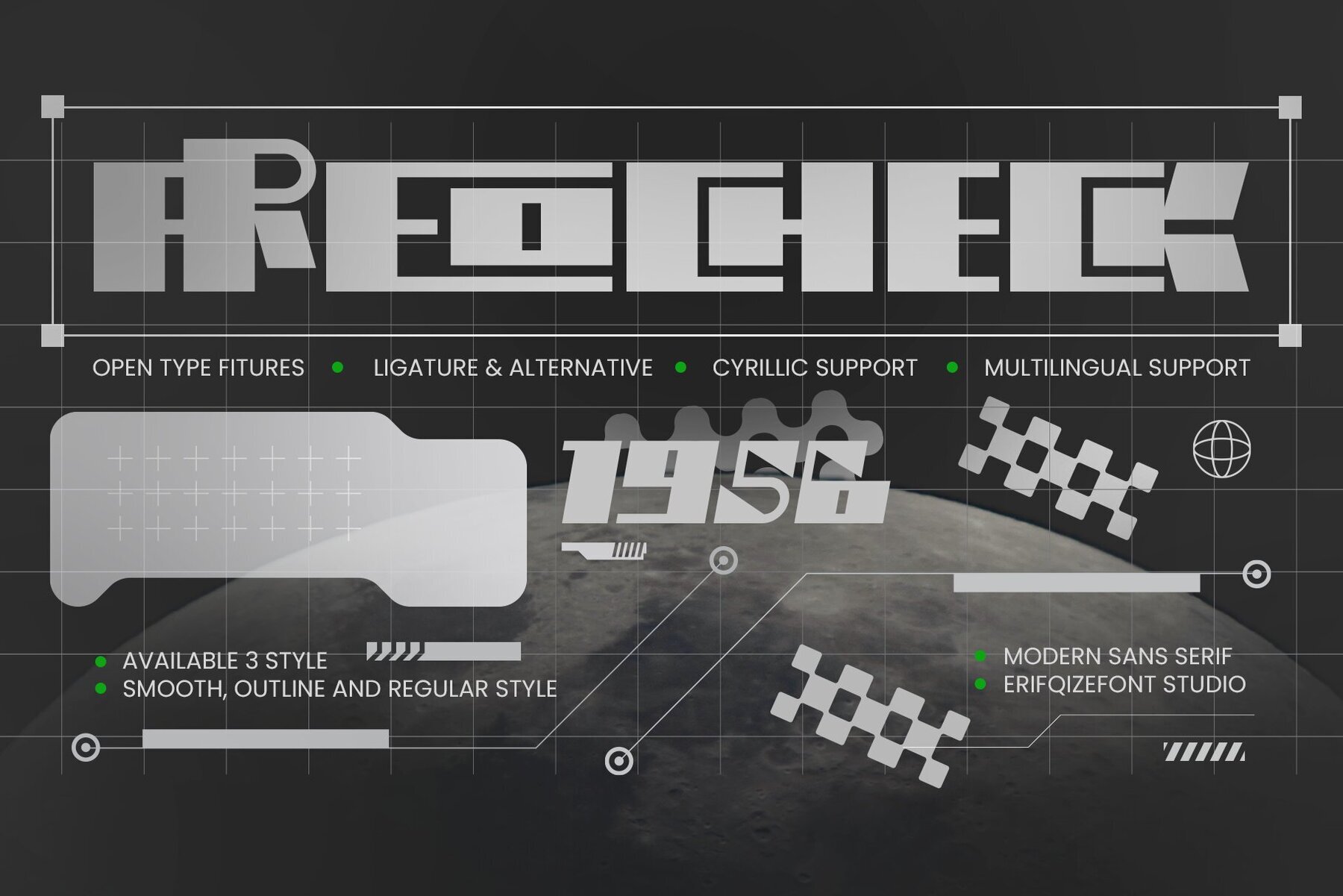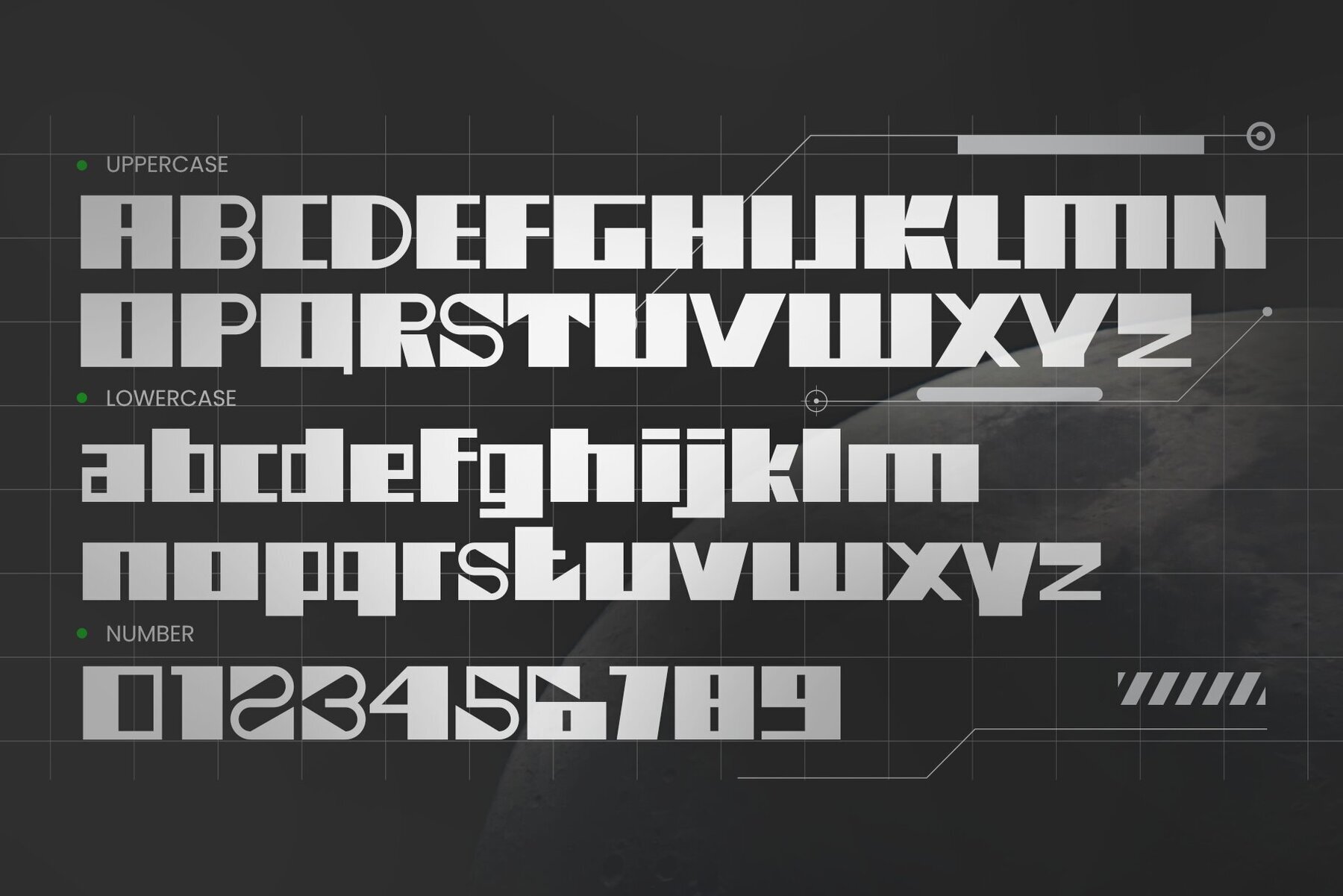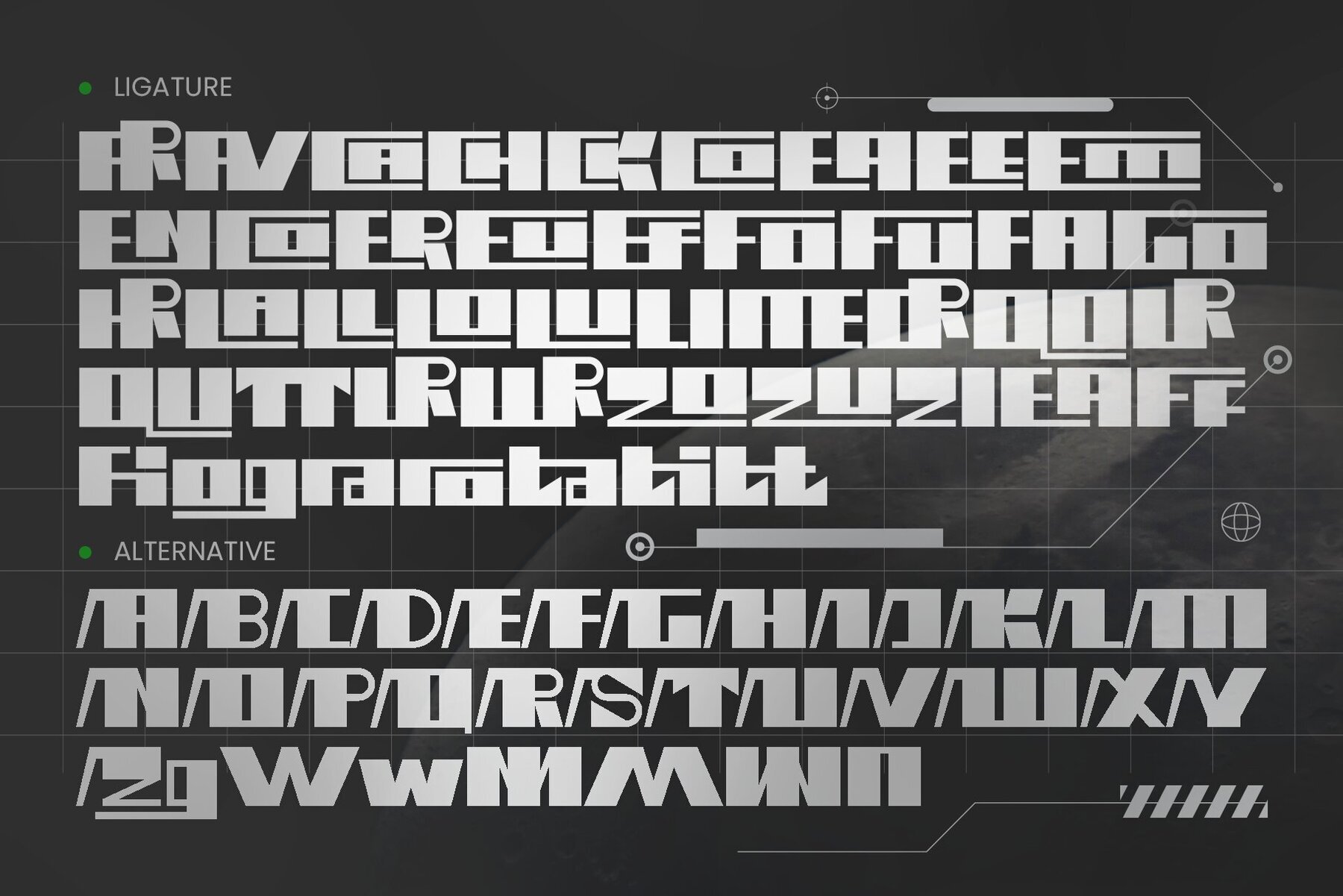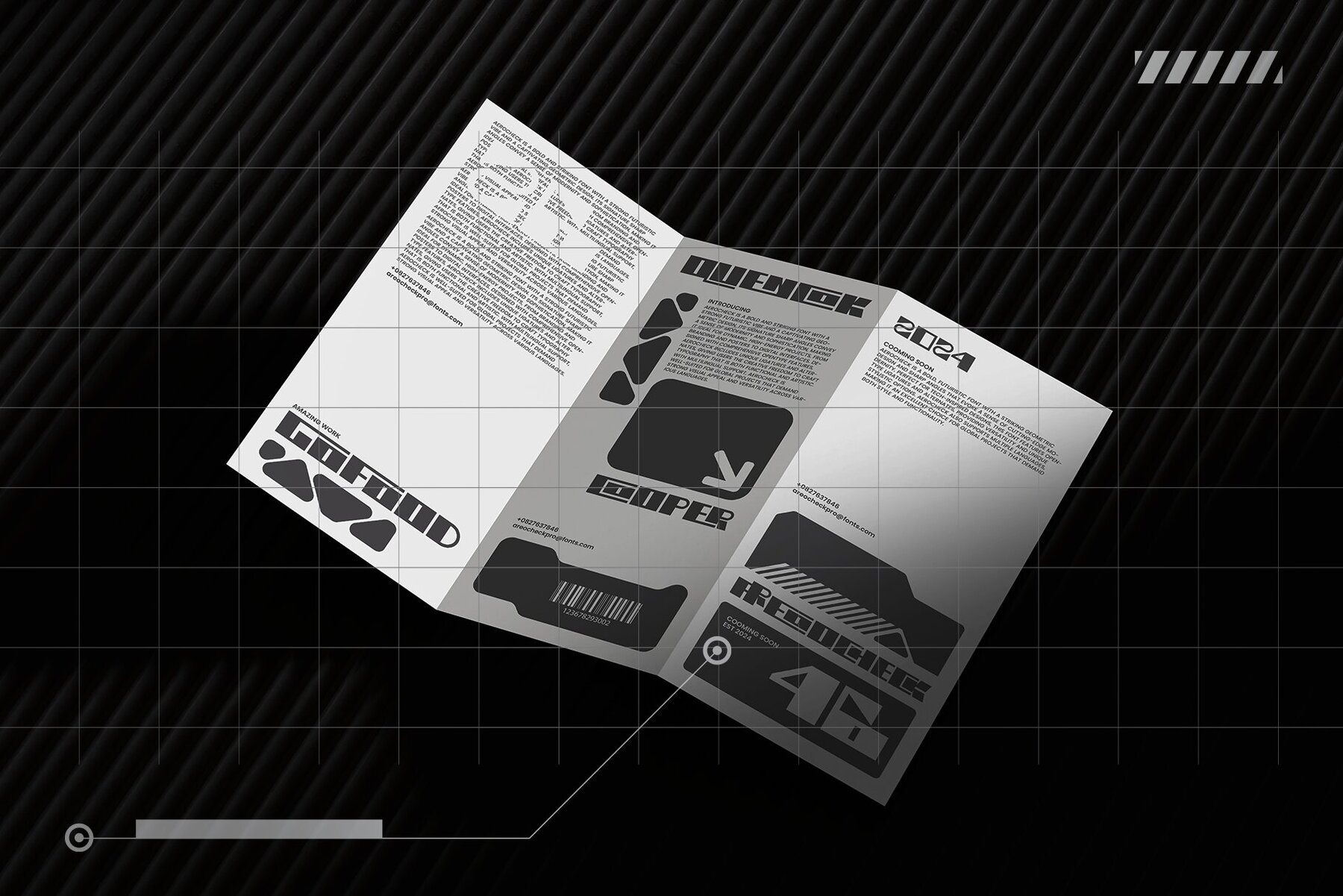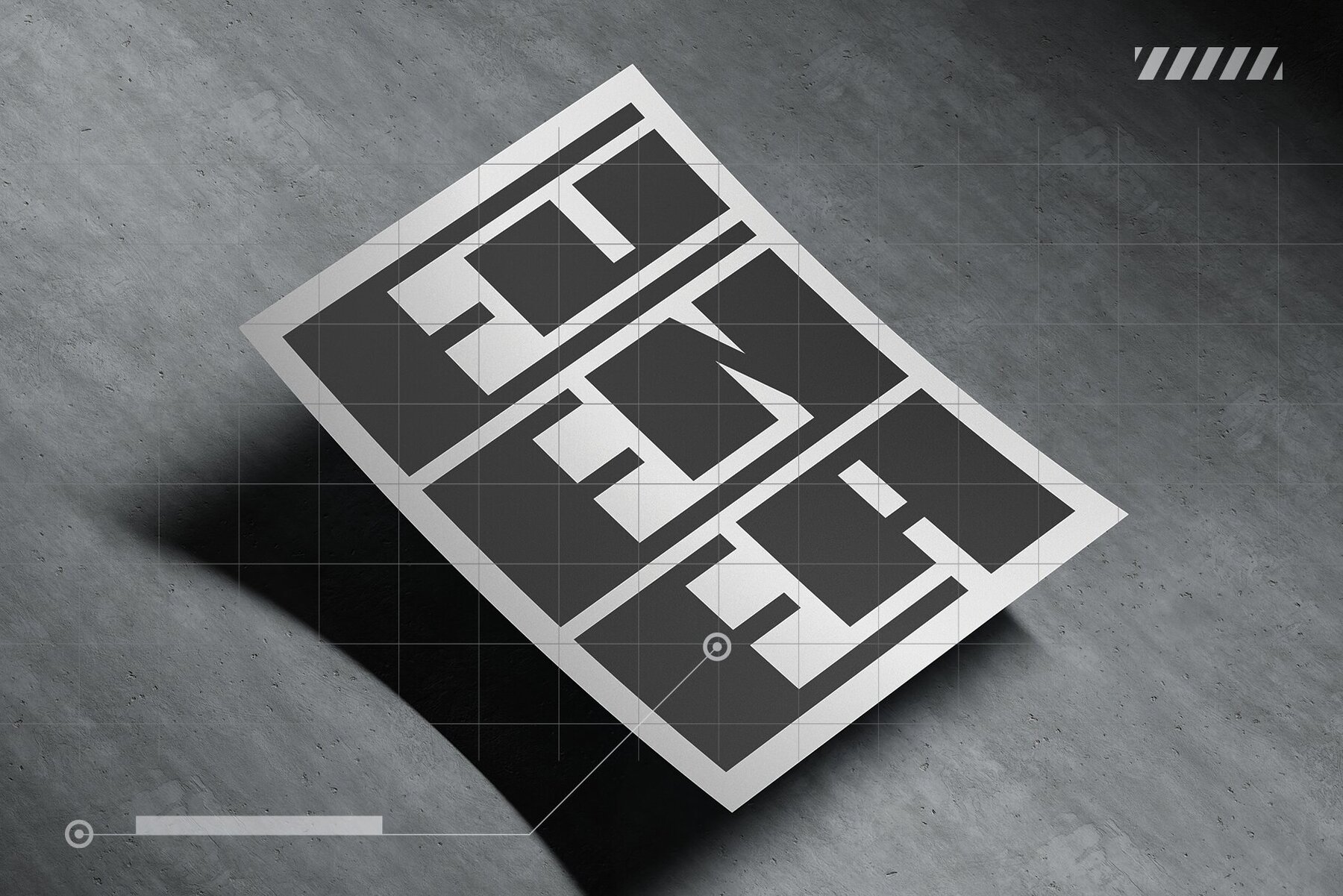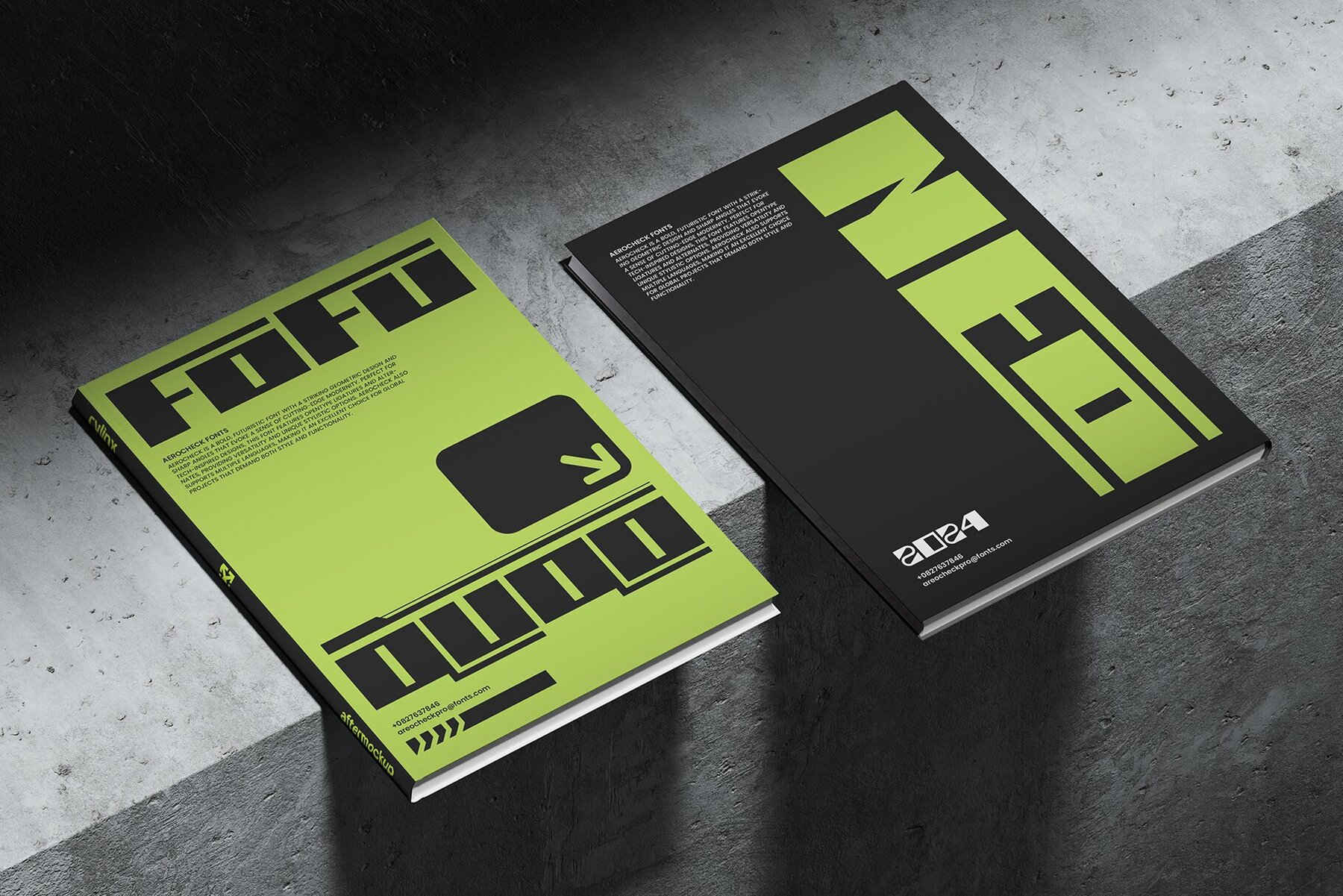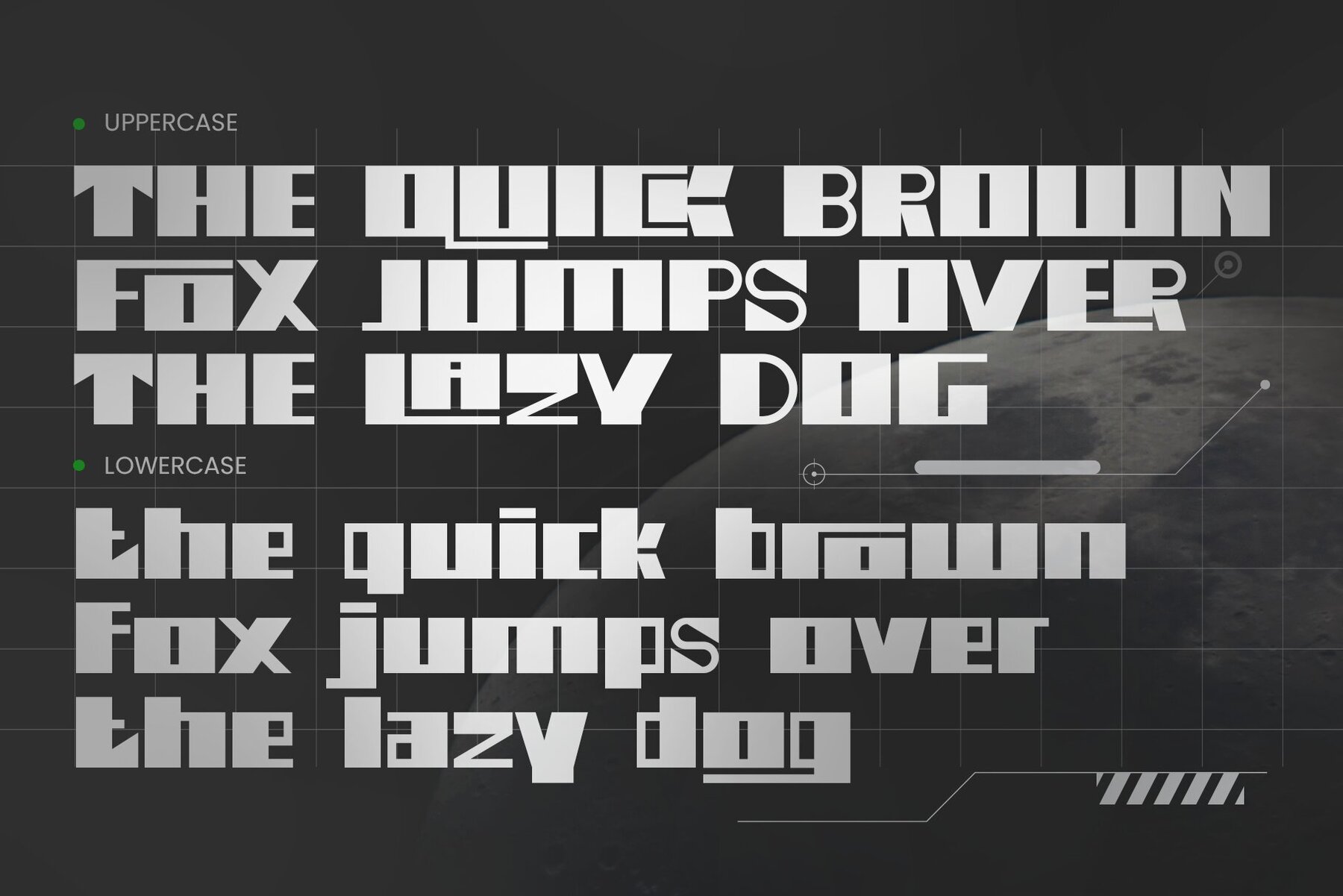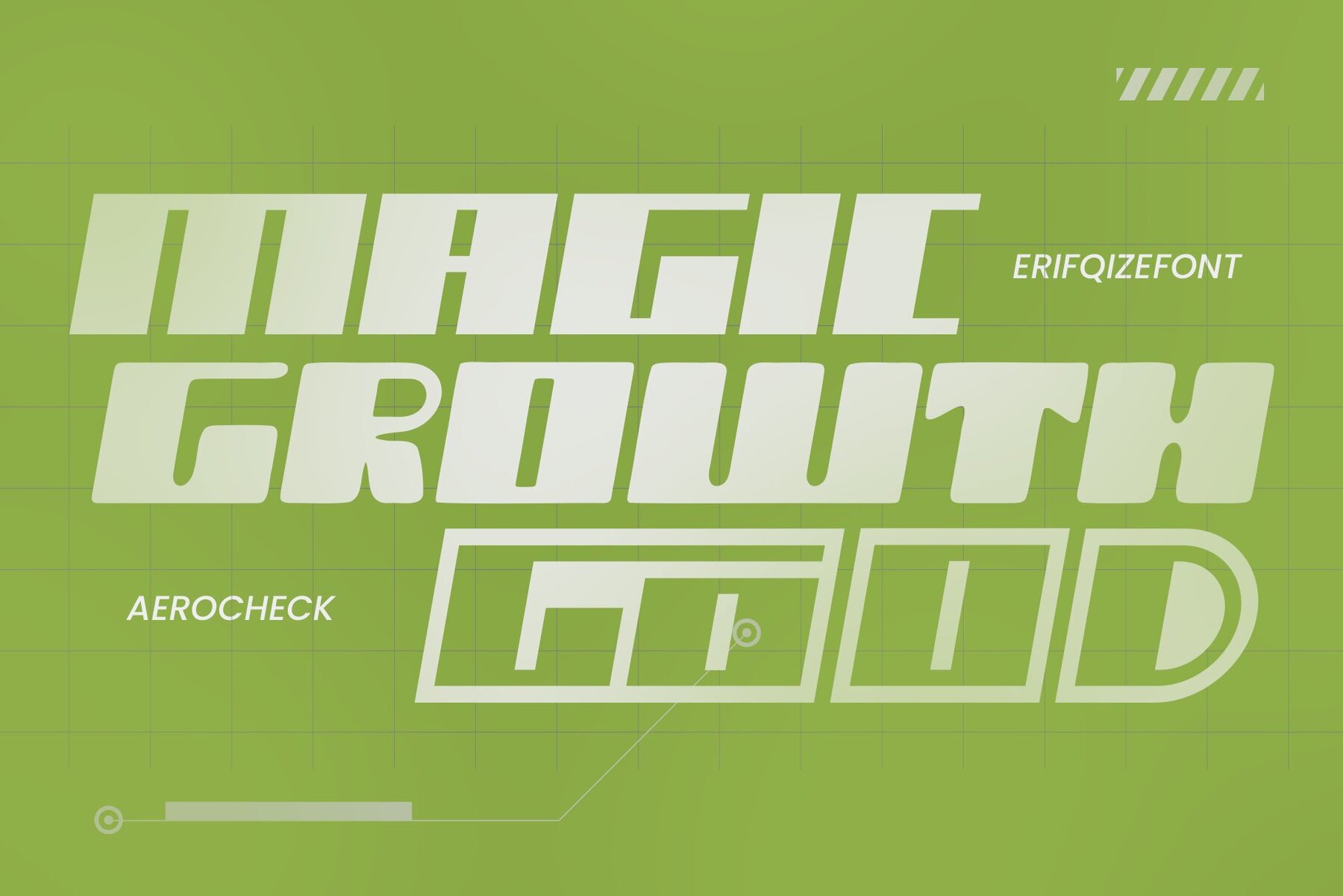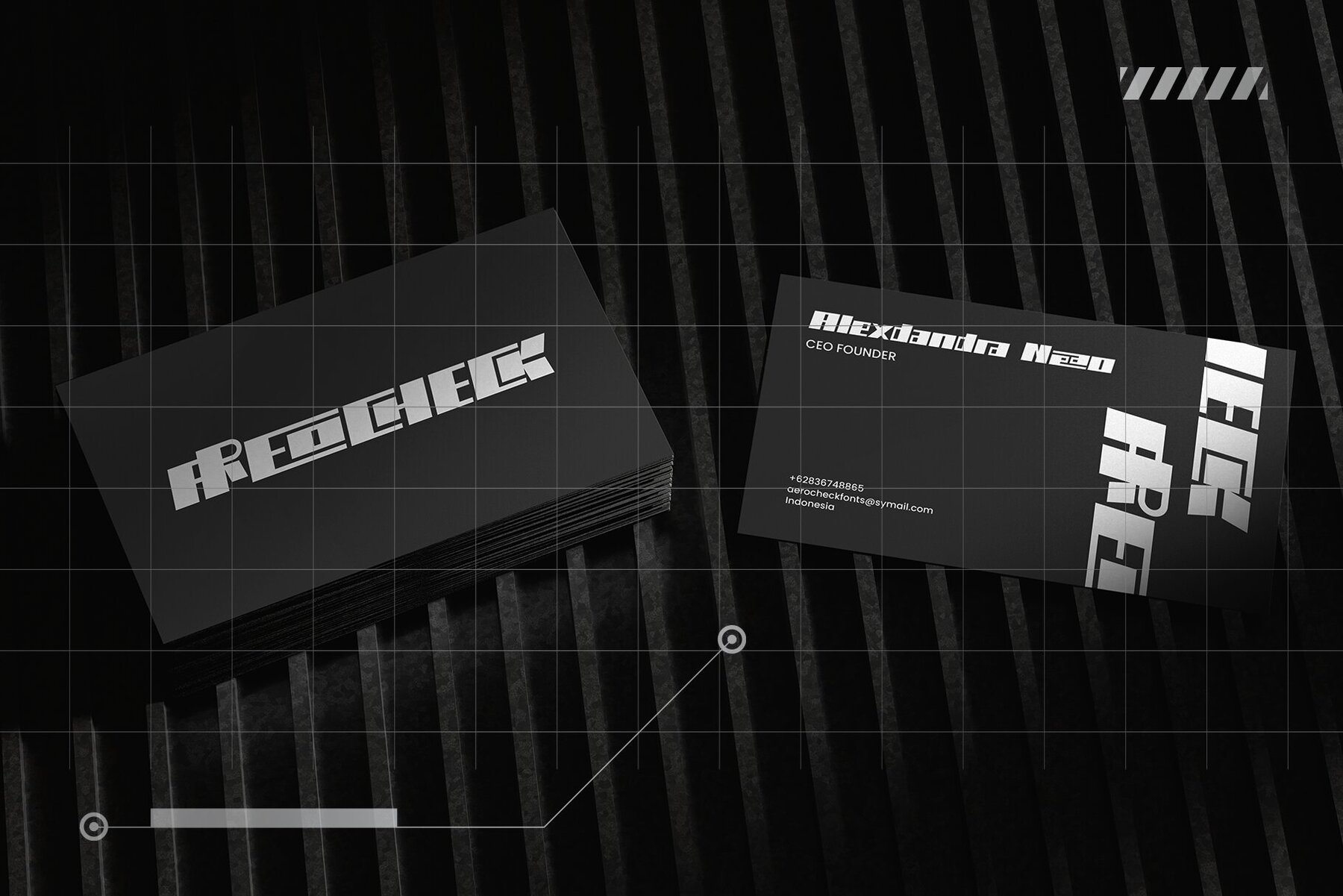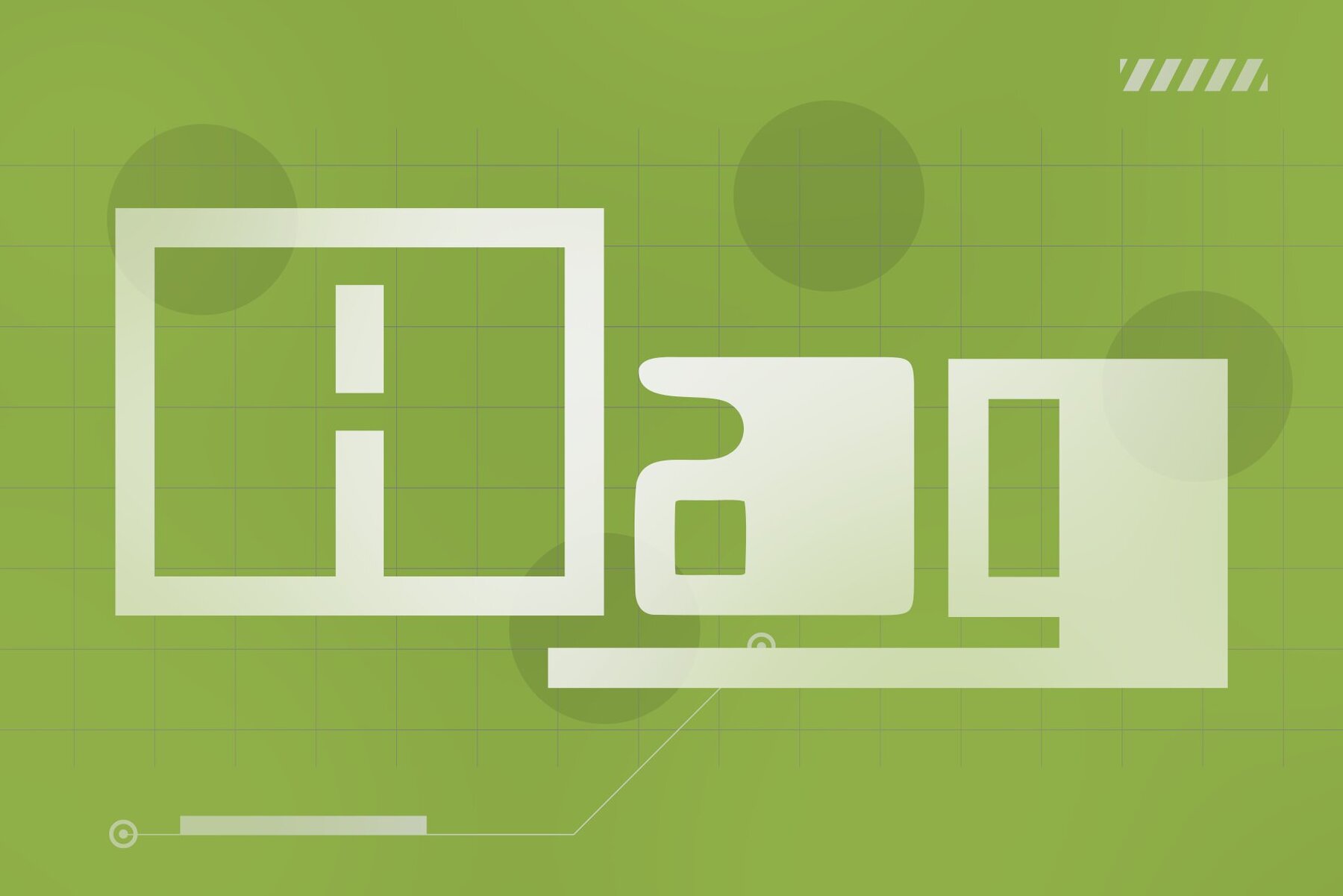
Areocheck Font
Areocheck
Areocheck Outline
Areocheck Smooth
Introducing Areocheck, a visually captivating typeface that merges modern sophistication with a bold geometric structure. Its sharp angles and clean lines create a striking futuristic vibe, perfect for adding energy and style to tech-inspired projects. From branding to digital interfaces, Areocheck's sharp precision enhances any creative endeavor. Harness the power of Areocheck’s dynamic design to bring precision, energy, and a cutting-edge flair to your next creative project. Whether it's editorial design or posters, this font empowers you to explore expressive typography without sacrificing functionality.Areocheck: A Futuristic Geometric Typeface
Versatility and Features